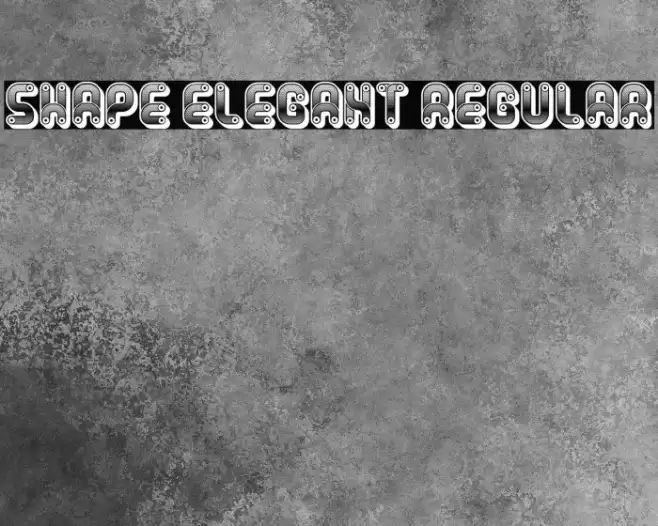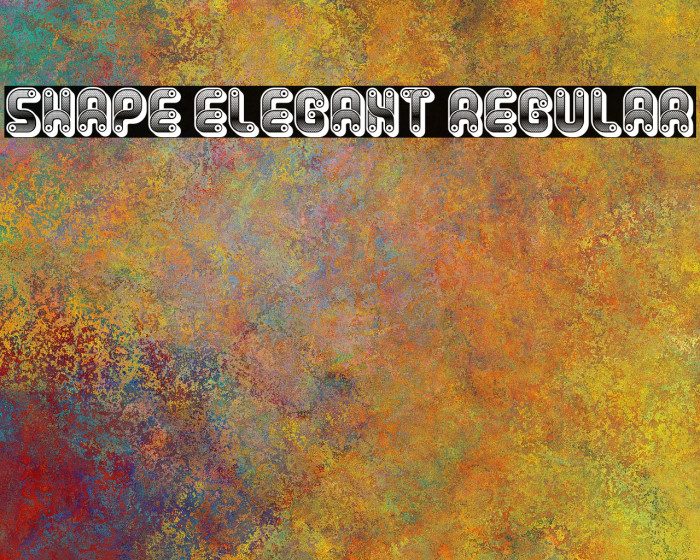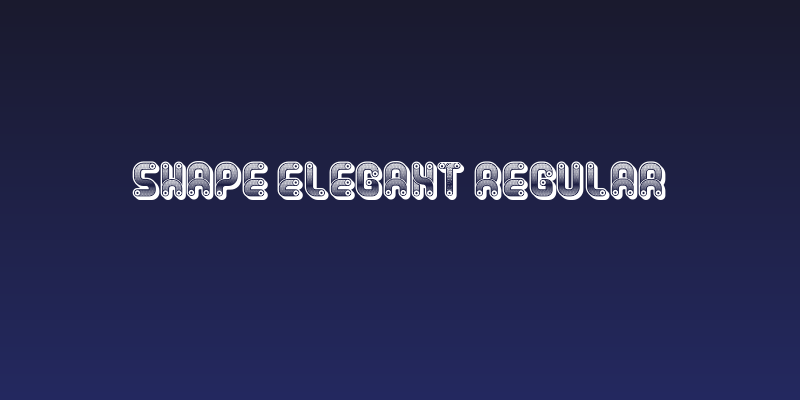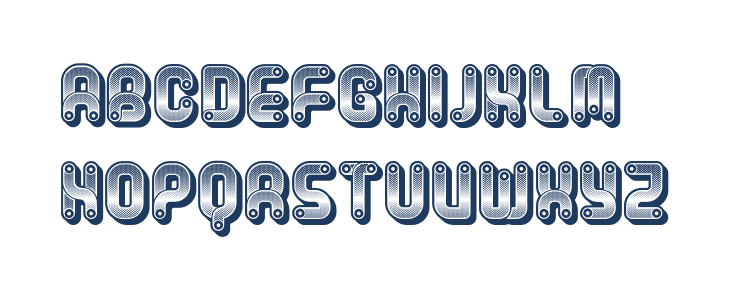
Shape Elegant Regular Font
Shape Elegant Regular Description
This font features a bold and decorative style with a unique, industrial aesthetic. Each letter is crafted with a three-dimensional effect, incorporating intricate patterns and textures that give it a mechanical and futuristic appearance. The characters are outlined with a thick border, enhancing their boldness and making them stand out. The design includes circular elements and rivet-like details, adding to its industrial charm. This font is highly stylized, making it ideal for projects that require a strong visual impact.
A bold, decorative font with an industrial, mechanical aesthetic from Decorative fonts.
- Proposed Projects: Ideal for posters, branding, video game graphics, and any project needing a strong, industrial theme.
- Overall Style: Modern, Industrial